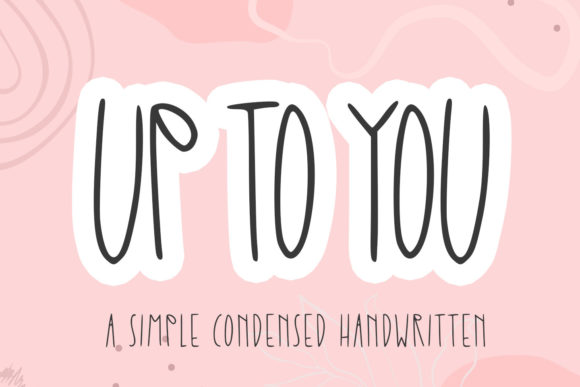
Up to You Font: A Cute and Simple Lettered Handwritten Font for Chalkboard Quotes and Teaching Materials
When it comes to creating visually appealing designs, the font used can make all the difference. For those looking to add a personal and realistic touch to their chalkboard quotes or teaching materials, the Up to You font is an excellent choice. This cute and simple lettered handwritten font has gained popularity among designers and educators alike, and for good reason. In this article, we’ll dive into the features and benefits of the Up to You font, and explore how it can elevate your designs.
What is Up to You Font?
Up to You is a handwriting font that mimics the authentic look of chalkboard writing. Its simple and cute lettering style makes it perfect for a variety of design projects, from chalkboard quotes to teaching materials, and even social media graphics. The font’s handwritten nature gives it a personal and realistic feel, making it an excellent choice for those looking to add a touch of warmth and personality to their designs.
Benefits of Using Up to You Font
- Authentic Look: The Up to You font has an authentic, handwriting-like quality that makes it perfect for chalkboard quotes and teaching materials.
- Easy to Read: The font’s simple and clear lettering style makes it easy to read, even at smaller sizes.
- Versatile: Up to You font can be used for a variety of design projects, from digital graphics to print materials.
- Personal Touch: The font’s handwritten nature adds a personal touch to designs, making them more relatable and engaging.
Use Cases for Up to You Font
Up to You font is an excellent choice for a variety of design projects, including:
- Chalkboard Quotes: Add a personal touch to your chalkboard quotes with the Up to You font.
- Teaching Materials: Use the font to create engaging and easy-to-read teaching materials, such as worksheets, posters, and presentations.
- Social Media Graphics: Add a touch of personality to your social media graphics, such as Instagram posts and Facebook updates.
- Print Materials: Use the font for print materials, such as flyers, brochures, and business cards.
Up to You Font Style
The Up to You font features a simple and cute lettered handwritten style, with a subtle charm that makes it perfect for a variety of design projects. The font’s lettering style is characterized by:
- Rounded Letters: The font features rounded letters, giving it a soft and friendly feel.
- Simple Lines: The font’s lines are simple and clean, making it easy to read and understand.
- Handwritten Touch: The font’s handwritten nature gives it a personal and realistic feel.
Up to You Font vs. Other Fonts
When compared to other fonts, the Up to You font stands out for its unique and authentic look. Here are a few key differences:
- Script Fonts: Unlike script fonts, which can be ornate and complicated, the Up to You font is simple and easy to read.
- Serif Fonts: Unlike serif fonts, which can be formal and traditional, the Up to You font is modern and friendly.
- Display Fonts: Unlike display fonts, which can be bold and attention-grabbing, the Up to You font is subtle and understated.
Tips and Tricks for Using Up to You Font
Here are a few tips and tricks for getting the most out of the Up to You font:
- Use it with Color: Use the Up to You font with bright and bold colors to add visual interest to your designs.
- Experiment with Sizes: Experiment with different font sizes to create visual hierarchy and emphasis in your designs.
- Pair it with Images: Pair the Up to You font with images and graphics to add depth and context to your designs.
In conclusion, the Up to You font is a cute and simple lettered handwritten font that is perfect for chalkboard quotes, teaching materials, and other design projects. Its authentic look and easy-to-read style make it an excellent choice for those looking to add a personal and realistic touch to their designs. With its versatility, simplicity, and charm, the Up to You font is sure to become a favorite among designers and educators alike.